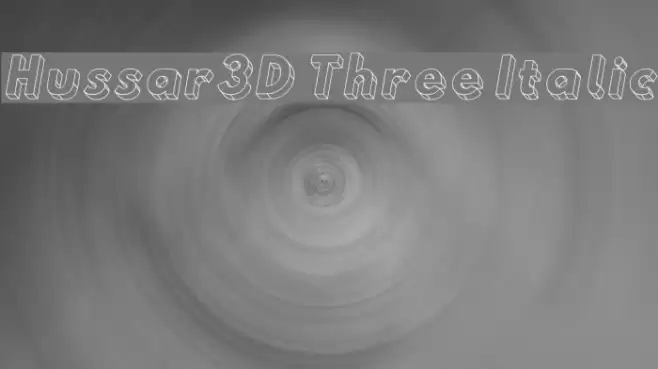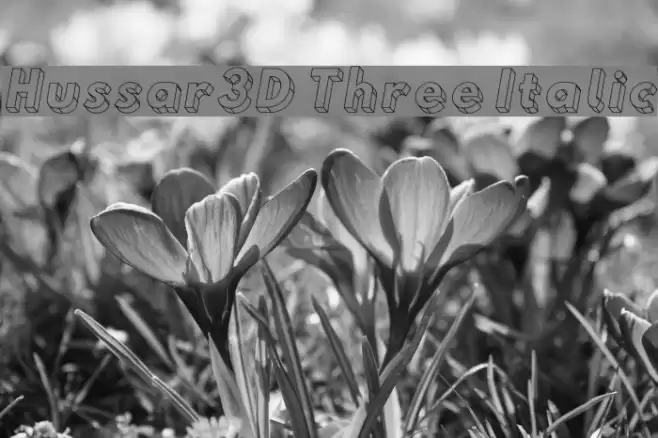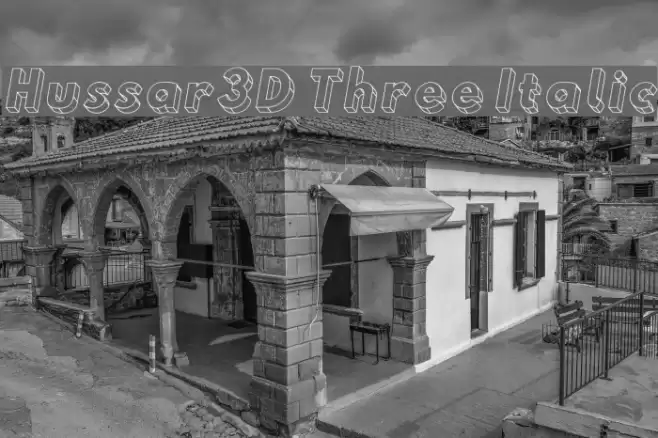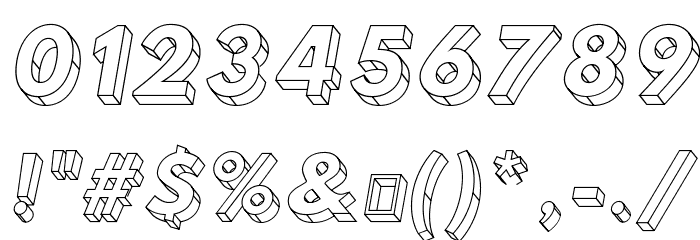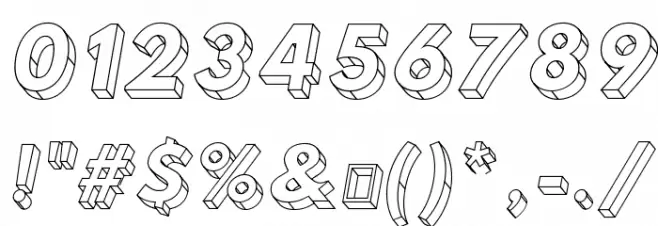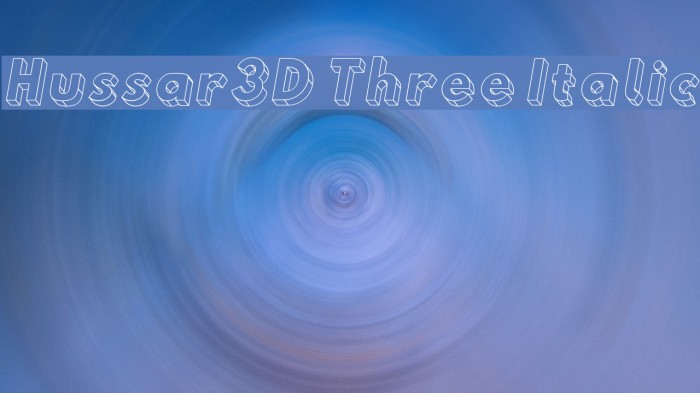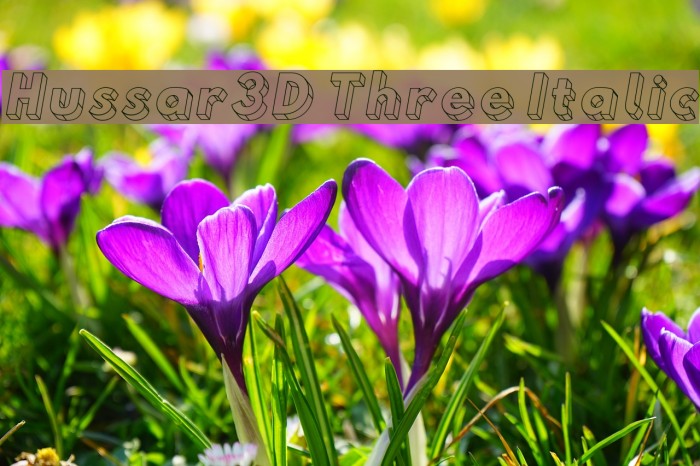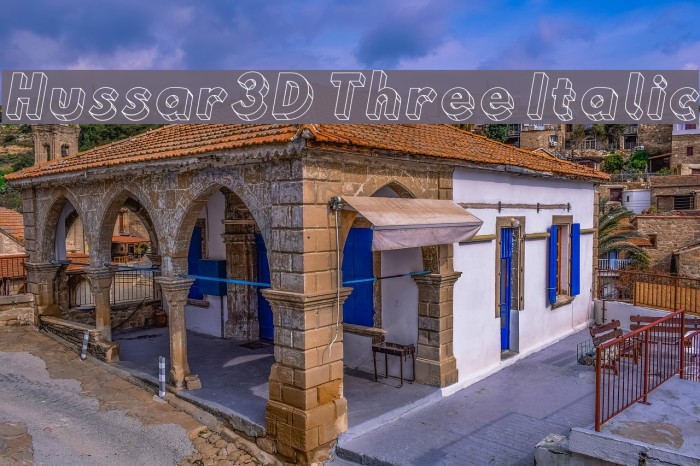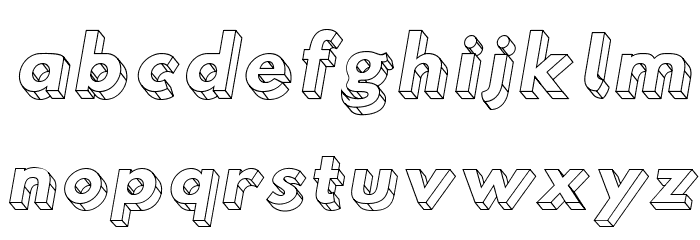
Hussar3D Three Italic
This font features a bold, three-dimensional design with a distinct italic slant, giving each character a dynamic and modern appearance. The letters are outlined, creating a sense of depth and shadow that enhances the 3D effect. The uppercase and lowercase letters maintain a consistent style, with clean lines and geometric shapes. Numbers and special characters are also included, following the same design principles. The font's unique style makes it suitable for eye-catching designs where a sense of movement and modernity is desired.
A bold, 3D italic font with outlined characters and a modern, dynamic style.
- Proposed Projects: Ideal for branding, posters, headlines, and any design requiring a bold, modern aesthetic.
- Use Case: Headlines, Logos, Posters